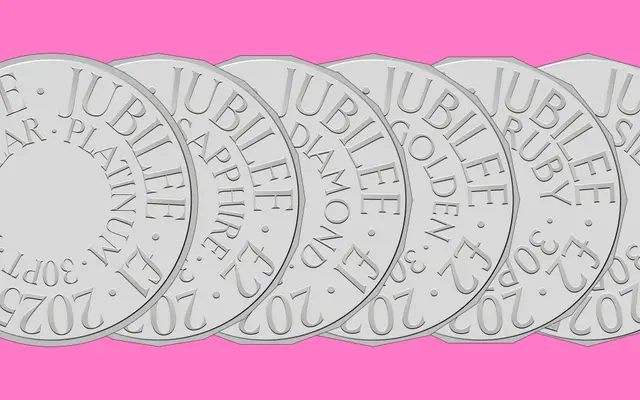
Jubilee
A 84-style family by Valerio Monopoli drawing on Gill Sans and British royal iconography, graduated across six subfamilies from sans to serif.
Designed by Valerio Monopoli with type design collaboration from Piero Beninato, Jubilee takes Gill Sans as a ghostly reference point and grafts onto it the visual codes of British royal ceremony. The six subfamilies — Silver through Platinum — progress along an axis of increasing serifness, echoing the Jubilees of Queen Elizabeth II's reign. Deliberately uneven proportions and an extended glyph set including royal crests and gem-like punctuation give it a hand-crafted quality that separates it from more clinical humanist designs.
Jubilee spans sans to serif across its six subfamilies, but its conceptual lineage from Gill Sans places it in the humanist sans tradition; the graduated 'serifness' across subfamilies makes strict categorisation difficult, though the sans end of the spectrum anchors it here.